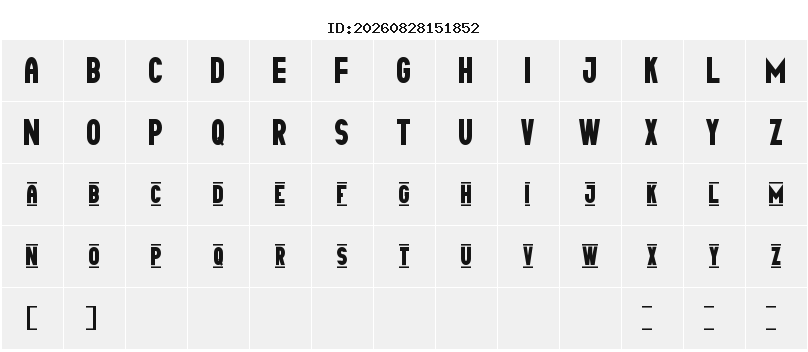
• Font Name: Tipo Capital1 St
About Tipo Capital1 St.ttf
Tipo Capital1 St.ttf is a modern, elegant sans-serif font designed for ultimate readability and visual harmony. Perfect for branding, headlines, web design, and print materials.